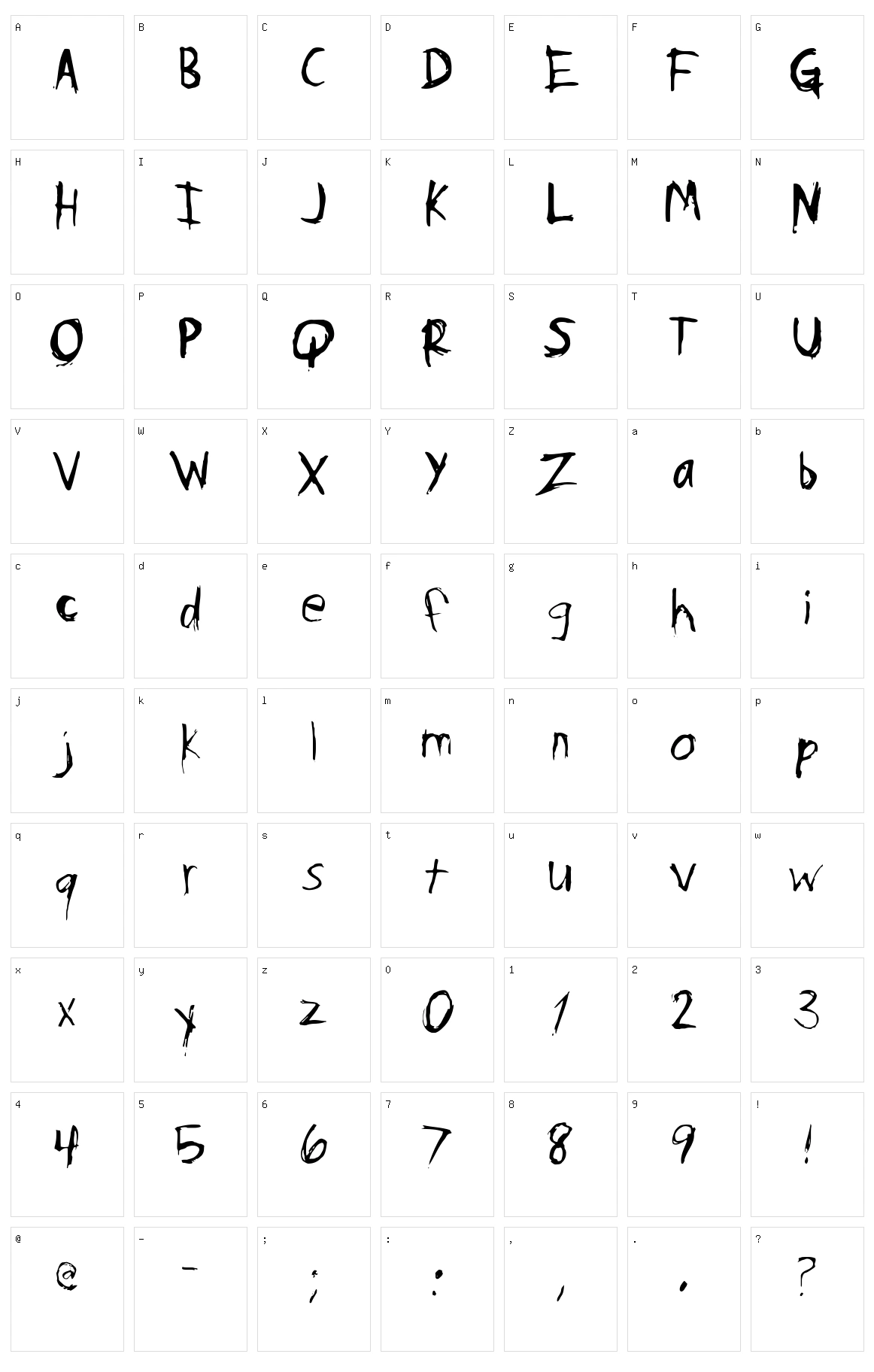
The free font Psycho Poetry is carefully designed by Slut Digital Type, showcasing a thoughtful balance of creativity and usability and falls under the Trash font style. When you download the ZIP file, it contains only 21.44 KB of font files, making it lightweight and quick to download. Please review the license details below to understand permitted usage and distribution rights. If license information is not available, we recommend using this font for personal projects only or contacting the author directly for commercial usage permissions.